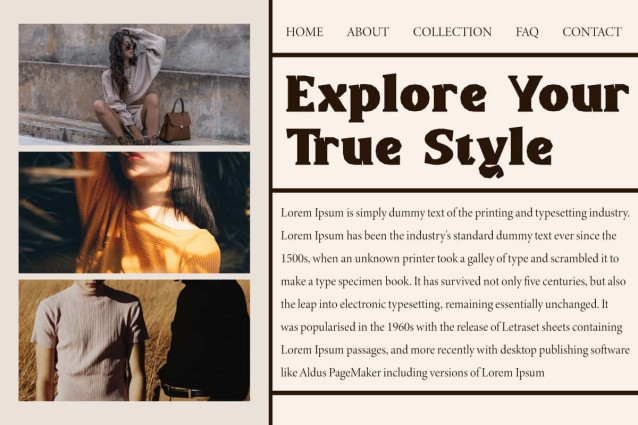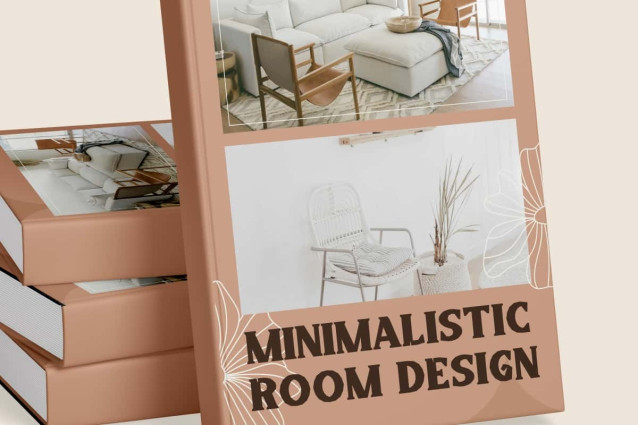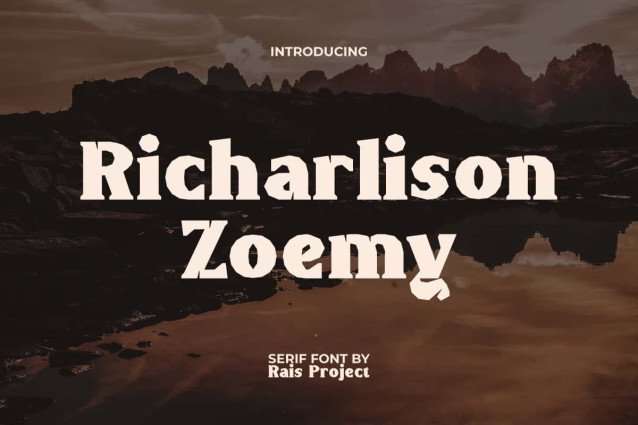
Richarlison Zoemy Font
Richarlison Zoemy Font is a bold serif display font inspired by popular dinosaurs movies. This font has a unique look, resembling a piece of wood so it can make your design stand out. It will look good on invitation, stationery, poster, custom design, product packaging, quotes, signage, brand image, advertisement, label, marketing material, website page, and more!
Richarlison Zoemy Font includes a full set of ALL CAPS for Uppercase and Lowercase Letters, Numerals, and large range of Punctuation. This stylish font will be suitable for various industries, such as fashion, homeware, cafe, event or wedding organizer, photography, printing, publishing, etc.